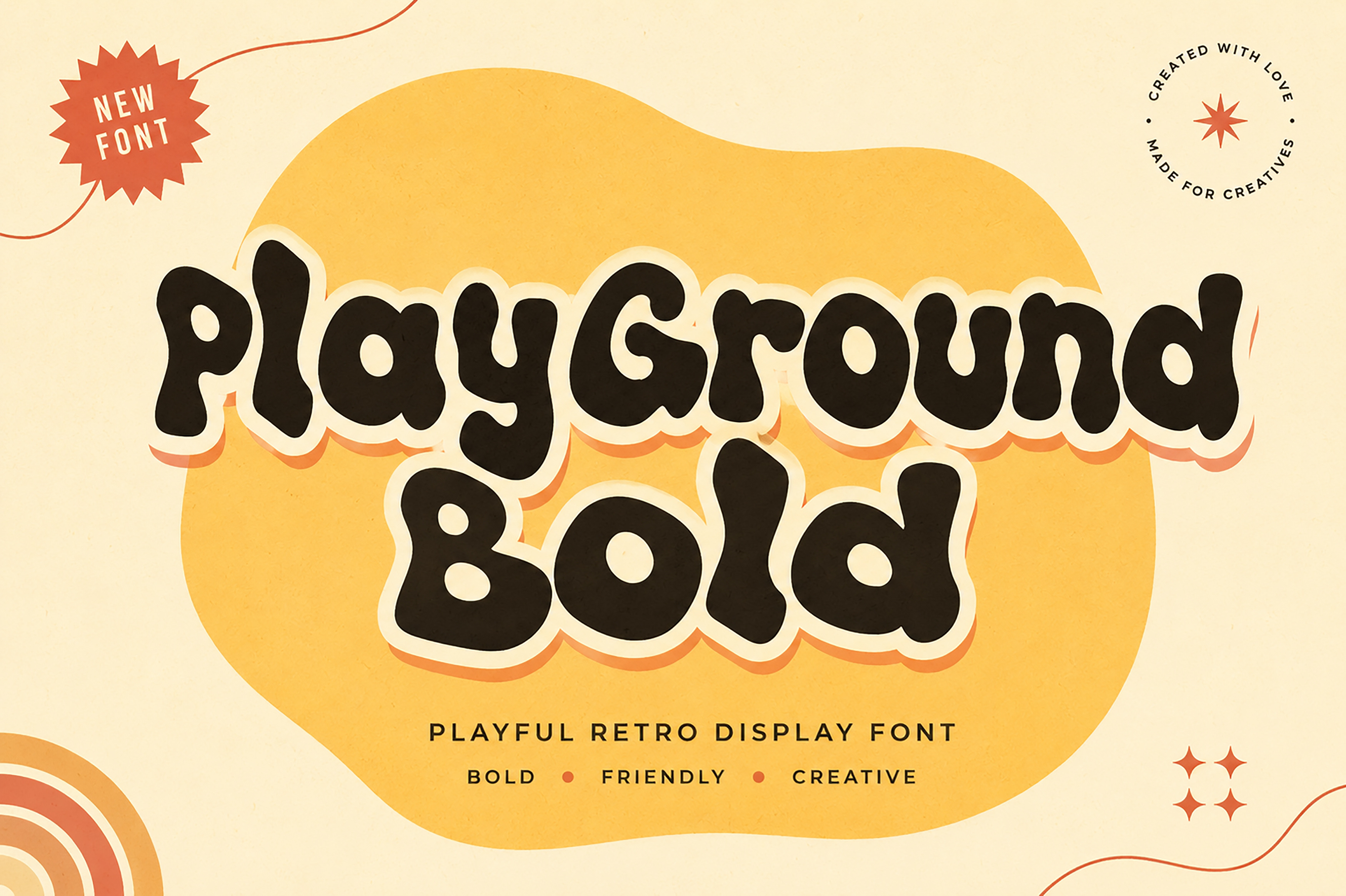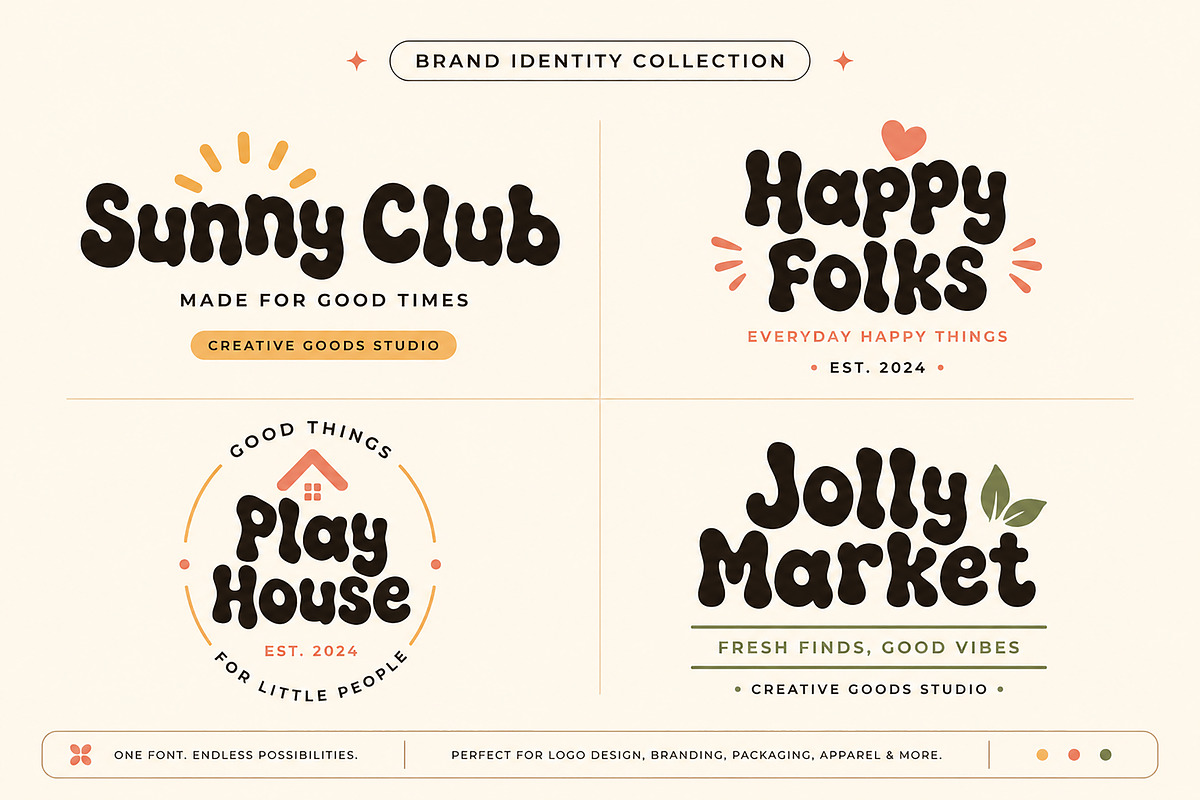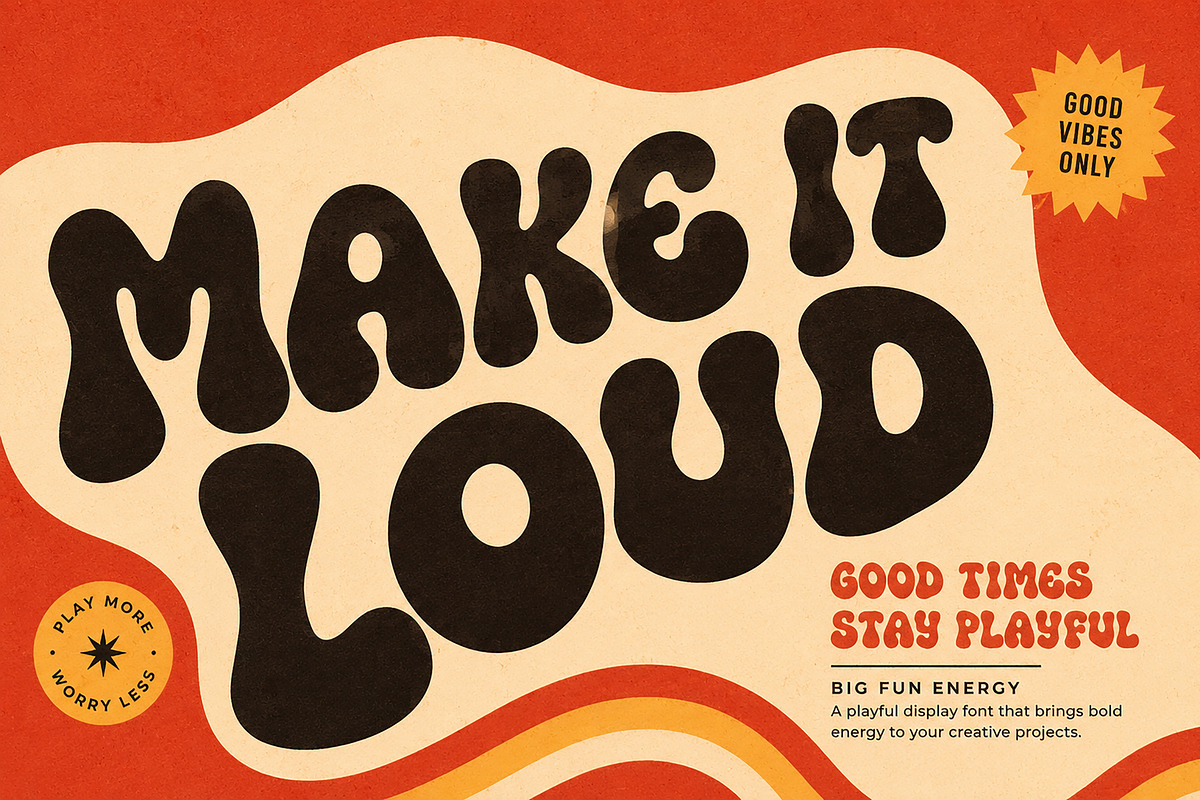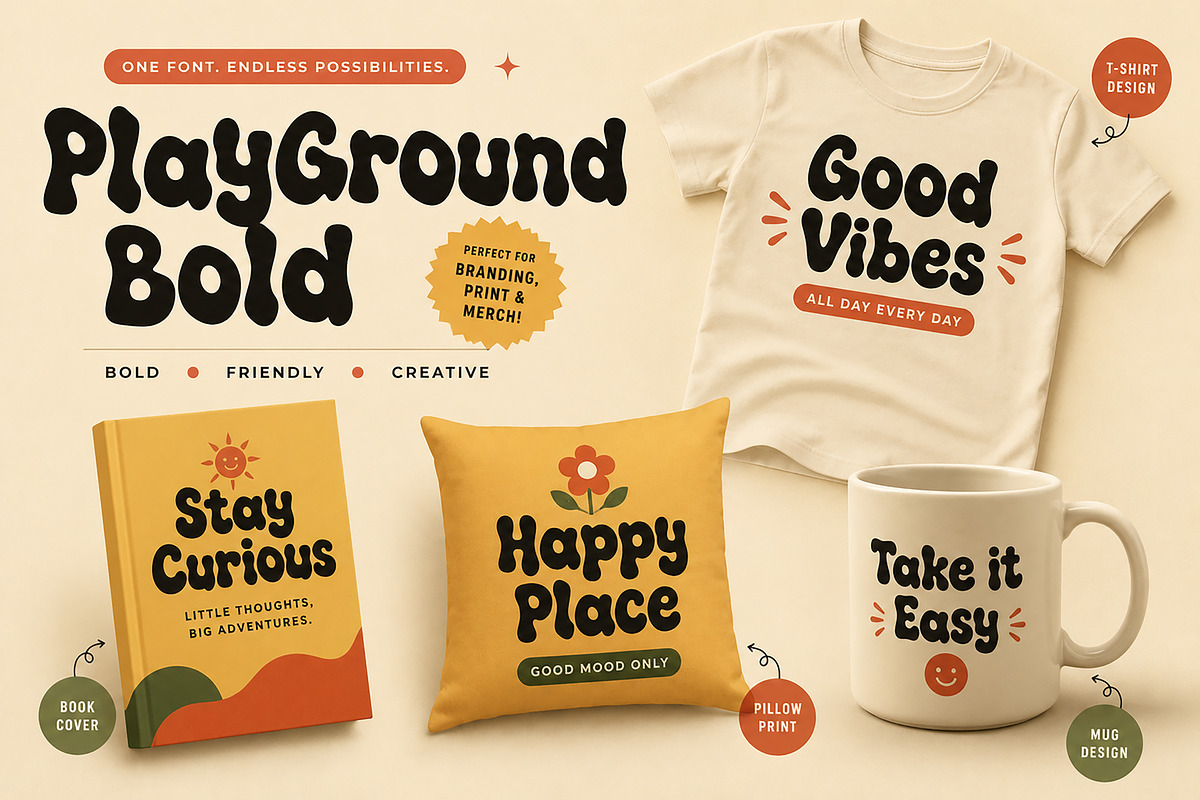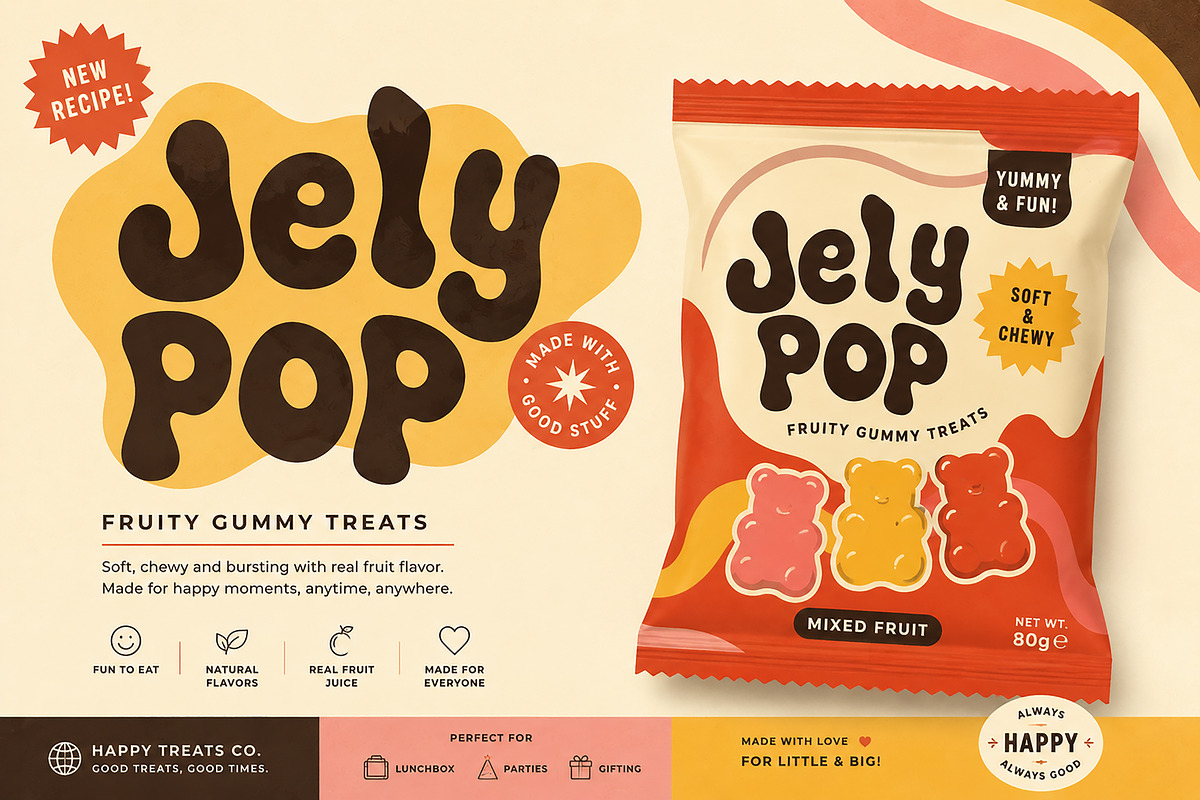
PlayGround Bold – Retro Display Font
PlayGround Bold – Playful Retro Display Font
PlayGround Bold is a fun, chunky, and expressive display font designed to bring a bold personality to your creative projects. Featuring soft curves, playful proportions, and an organic retro-inspired character, this typeface is perfect for designs that need to feel friendly, energetic, and instantly noticeable.
Its distinctive hand-crafted appearance combines nostalgic retro vibes with a fresh modern feel, making PlayGround Bold an excellent choice for eye-catching headlines, playful branding, packaging, merchandise, posters, and social media graphics.
Whether you're creating a cheerful brand identity, funky product packaging, a statement T-shirt, or an attention-grabbing poster, PlayGround Bold gives your typography a memorable and confident personality.
Branding & Logo Design • Product Packaging • Posters & Flyers • T-Shirt Designs • Merchandise • Book Covers • Café & Food Branding • Kids Products • Stickers • Mug & Pillow Designs • Social Media Graphics • Advertising • Editorial Headlines • Creative Projects
Bold & playful display style
Retro-inspired organic letterforms
Chunky and highly visible appearance
Great for large headlines and branding
Friendly, fun, and creative personality
Easy to use in various design applications
Add a playful retro personality to your next project with PlayGround Bold — made for bold ideas, happy brands, and creative designs.